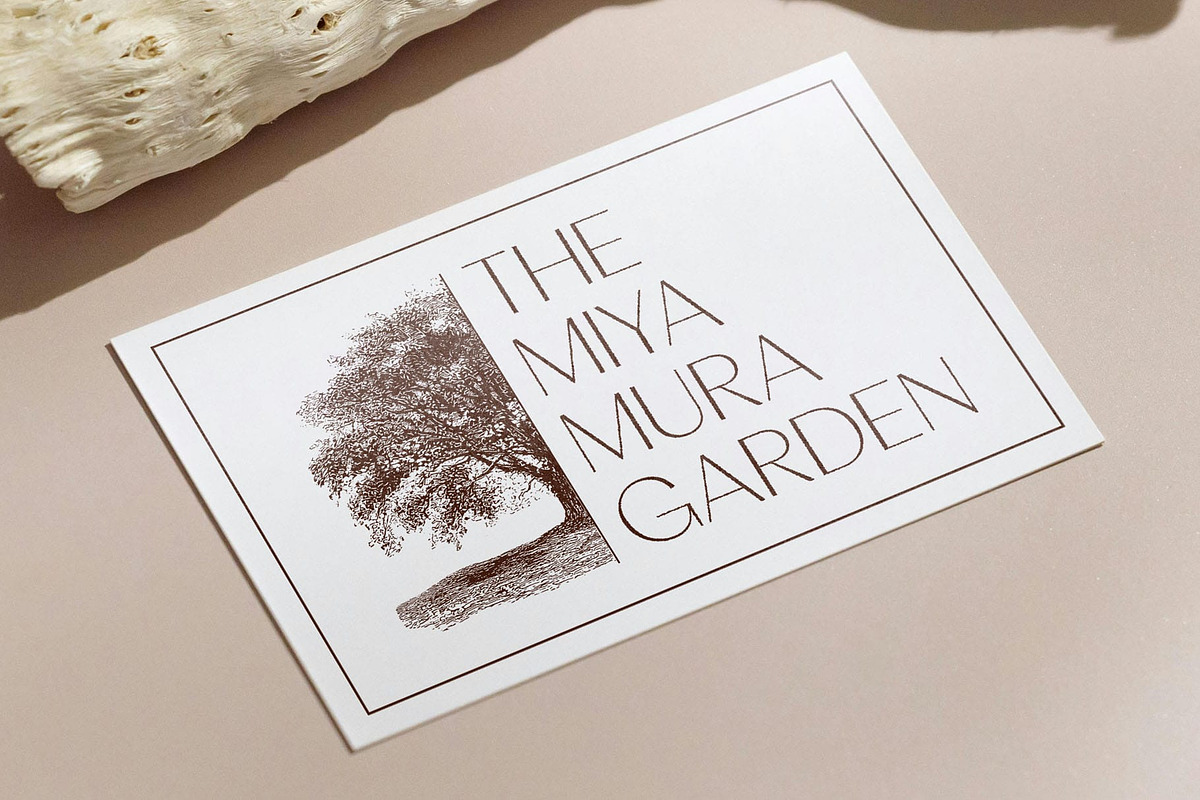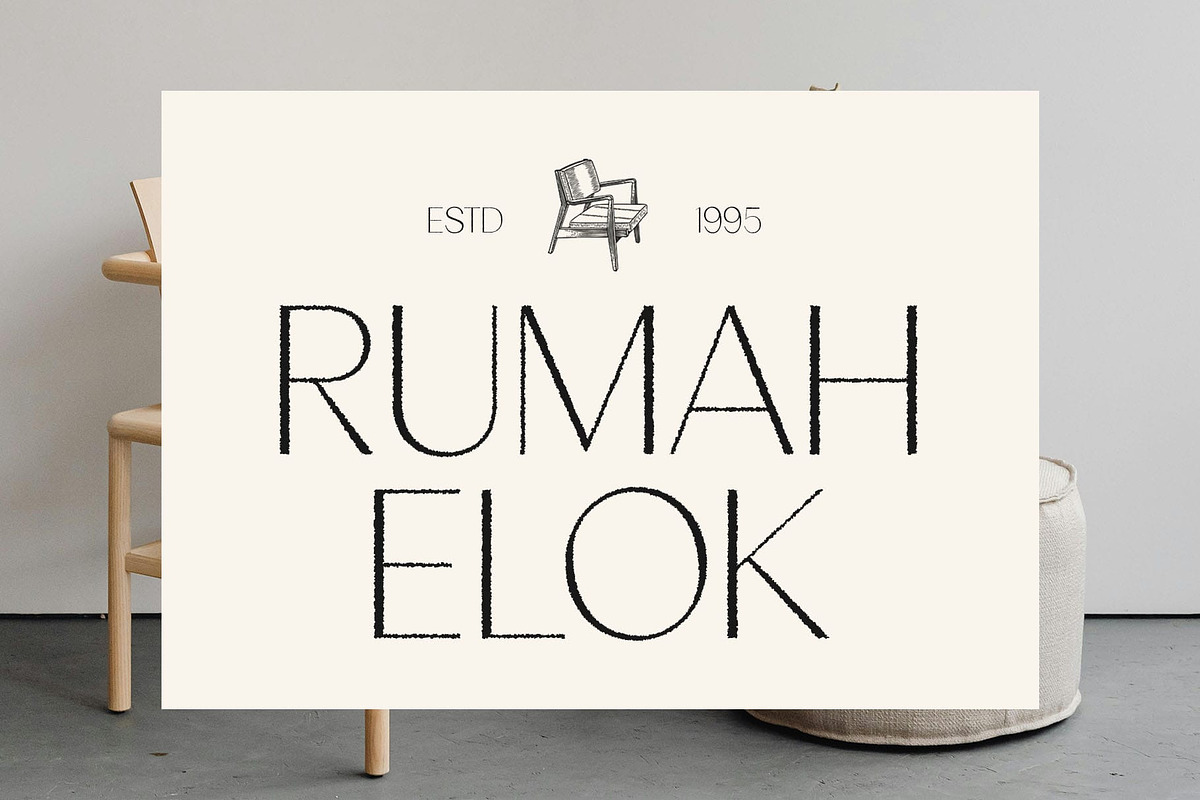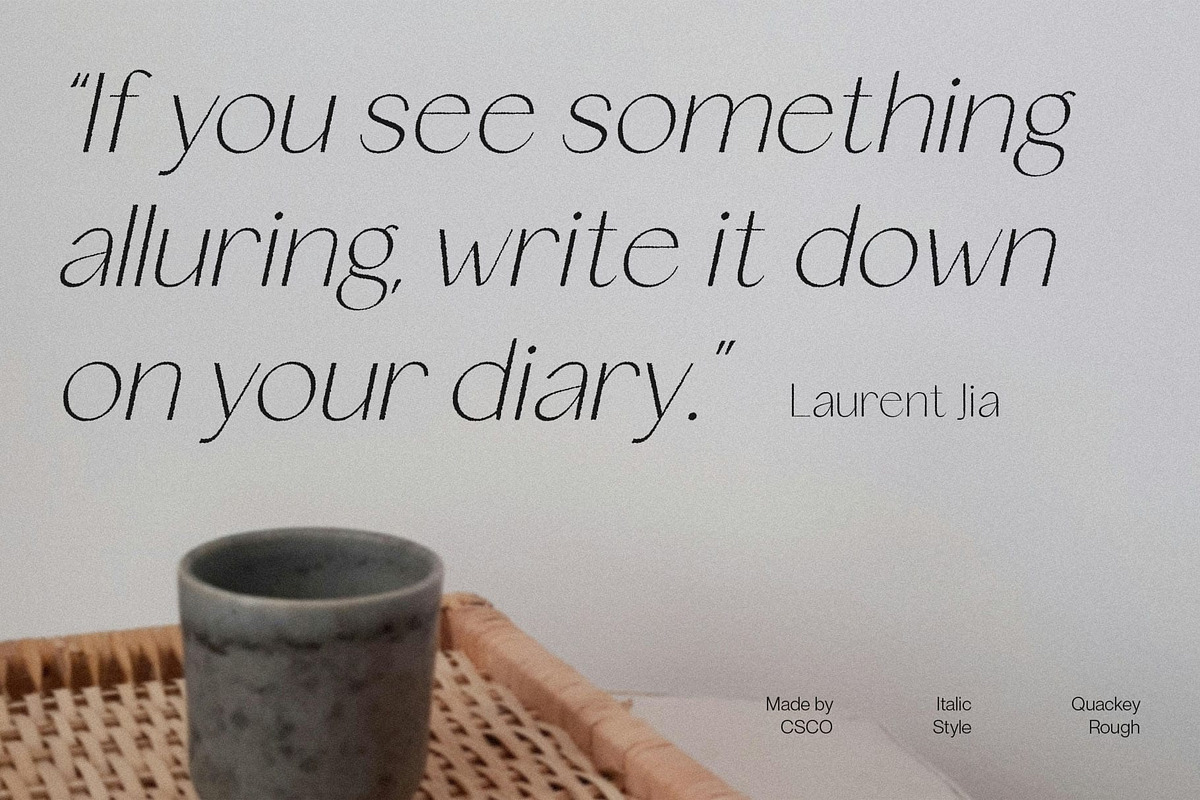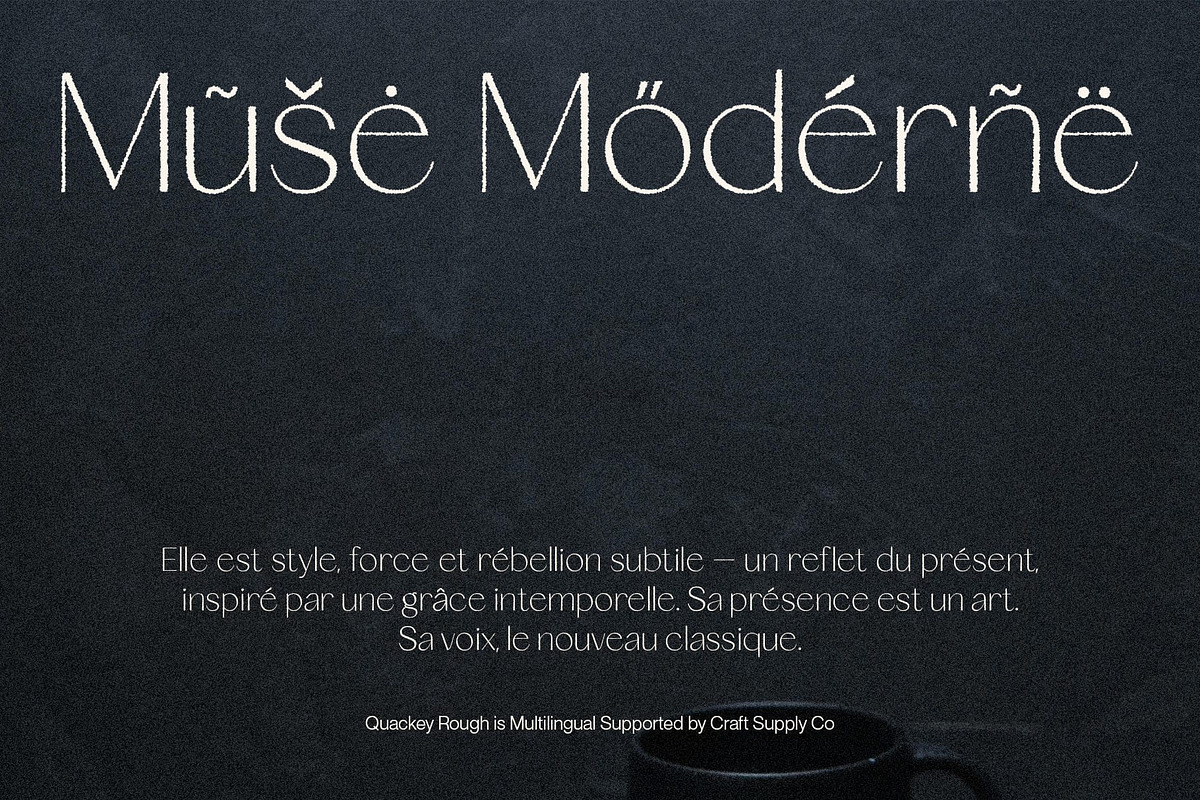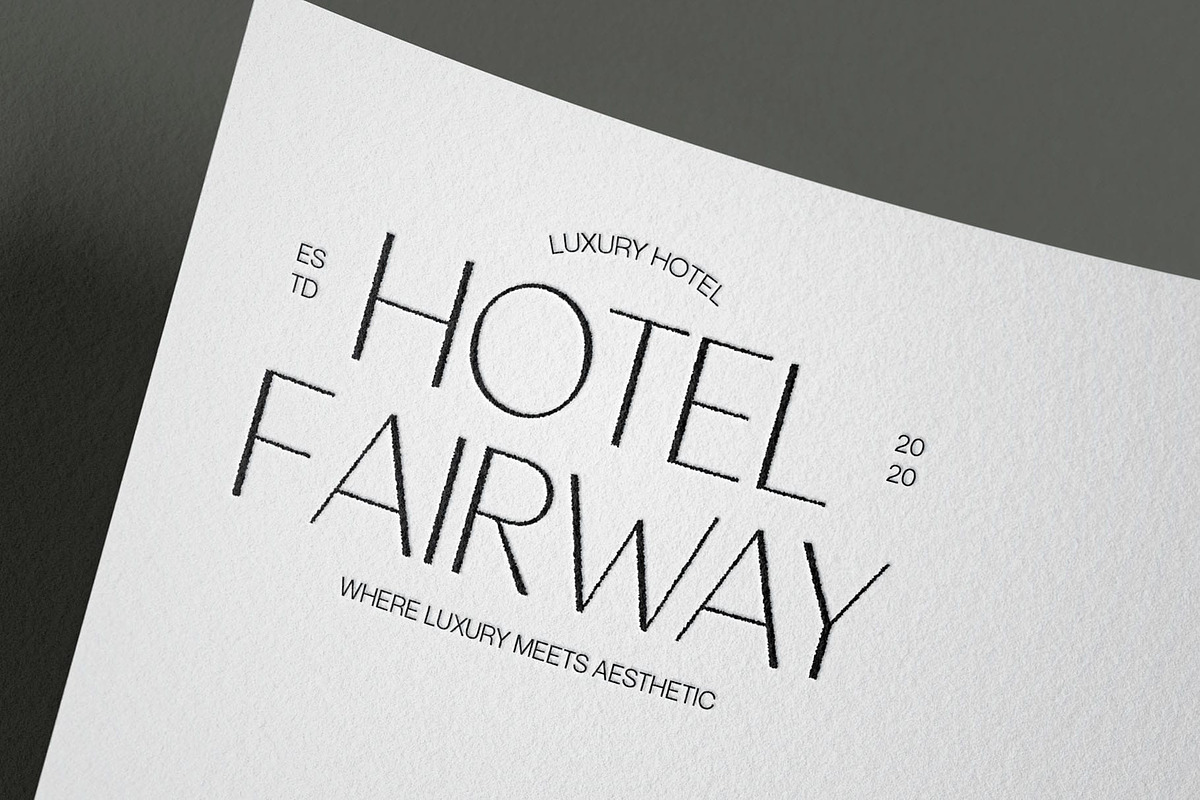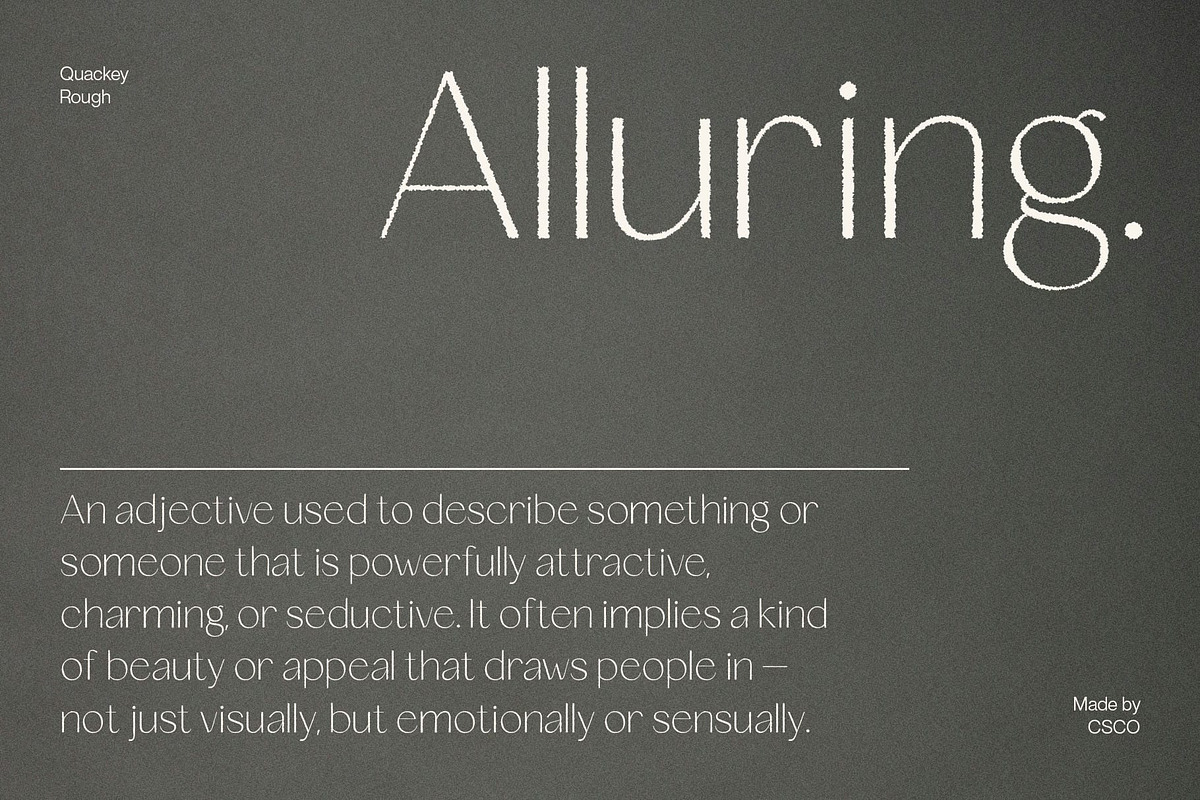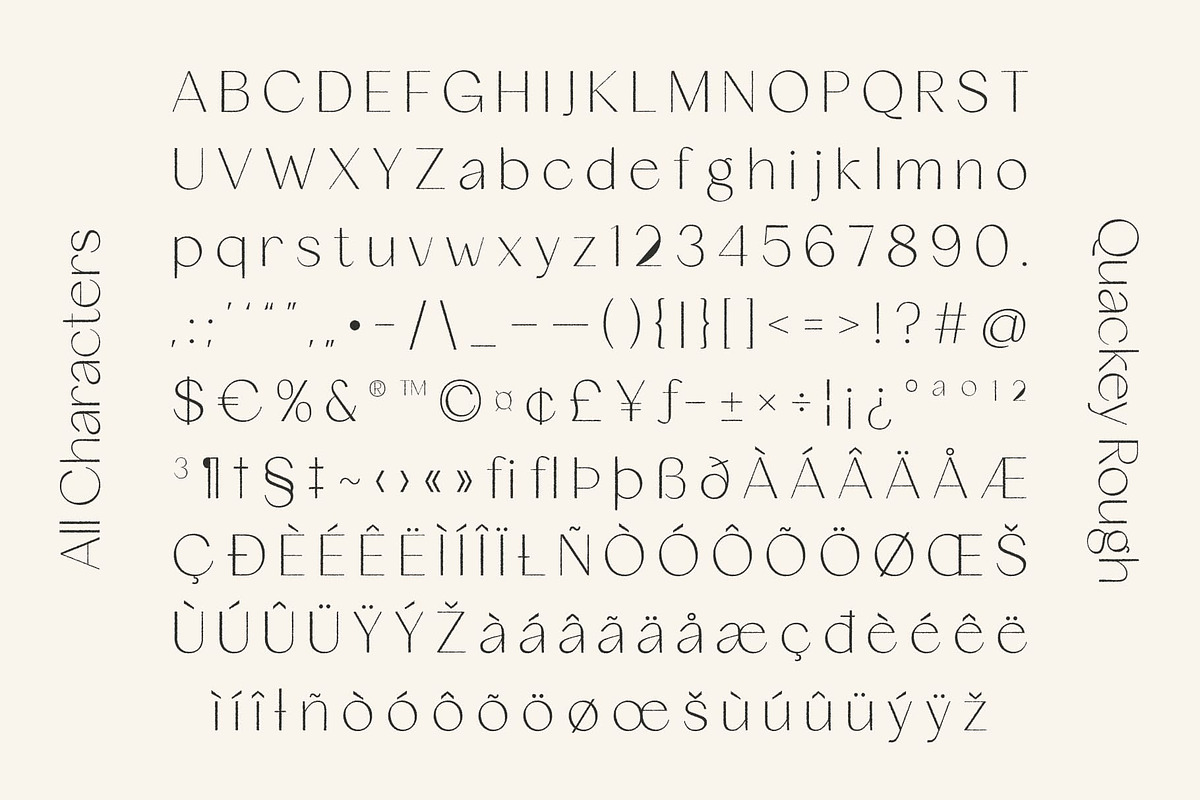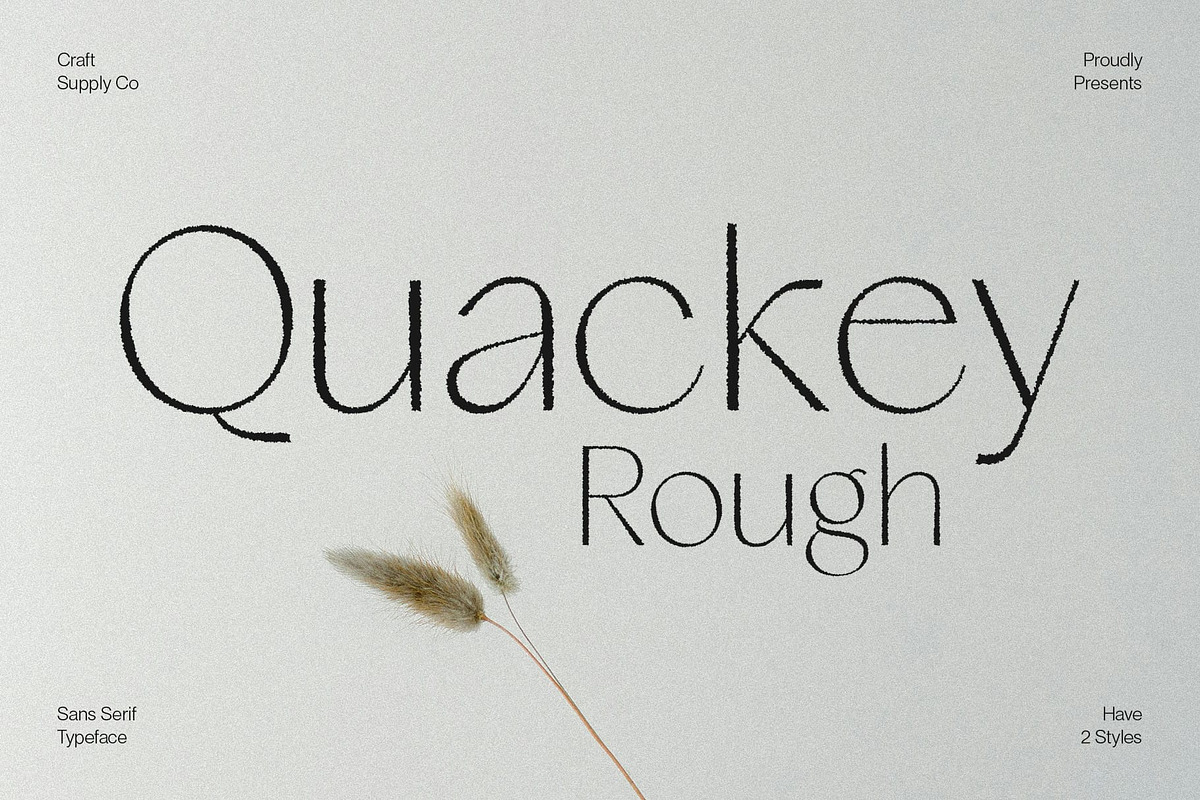
Quackey Rough
Quackey Rough Font – Modern Sans Serif with an Artistic Edge
Sleek and Stylish Contemporary Sans Serif Quackey Rough is a modern sans serif font characterized by its slim, clean, and stylish letterforms. The font’s refined geometry and elegant proportions give it a polished and professional appearance, perfect for designs that demand a modern yet approachable look.
Subtle Rough Texture for Organic Character Adding to its contemporary design, Quackey Rough features a delicate rough texture that introduces a tactile, handcrafted feel. This texture adds depth and uniqueness, creating a font that feels both sophisticated and artistically expressive. The rough effect brings an organic quality that softens the clean lines without compromising clarity or legibility.
Ideal for Sophisticated and Creative Projects This font excels in branding, fashion editorials, packaging, and digital media, where a blend of modern elegance and creative personality is essential. Its versatile style works well in headlines, logos, and visual identities, providing a fresh alternative to overly polished sans serif fonts.
Combining Professionalism with Expressive Flair Quackey Rough bridges the gap between minimalism and artistry, making it perfect for designers seeking a font that balances sleek professionalism with a subtle artistic edge. Whether used in luxury branding or contemporary creative projects, it delivers a memorable and refined impression.